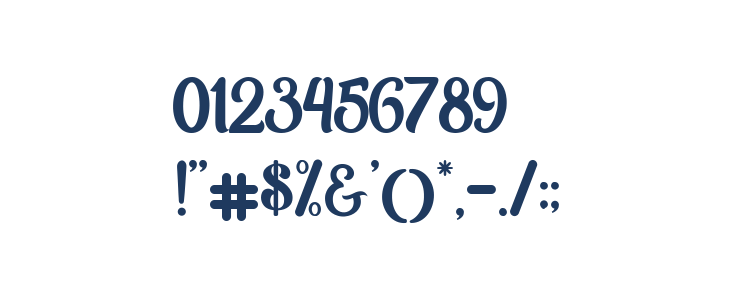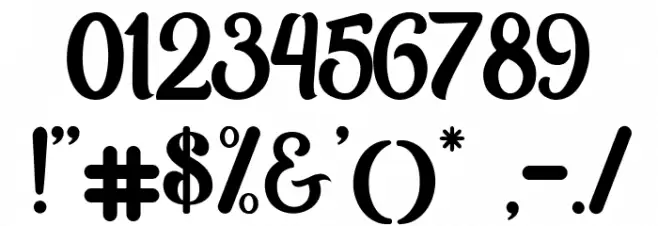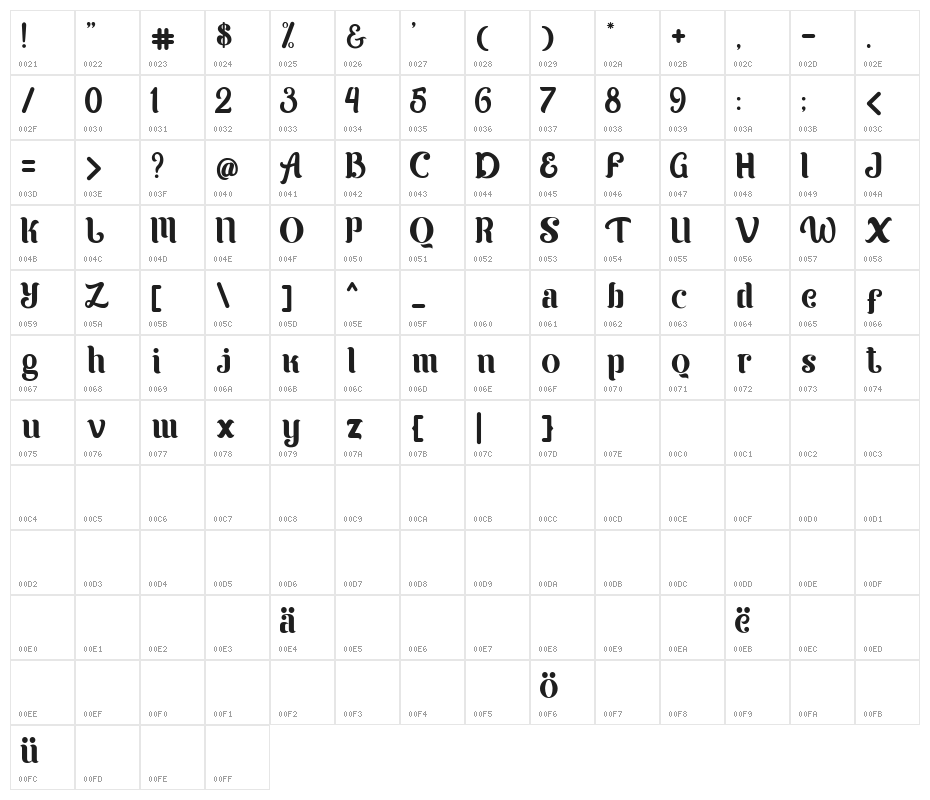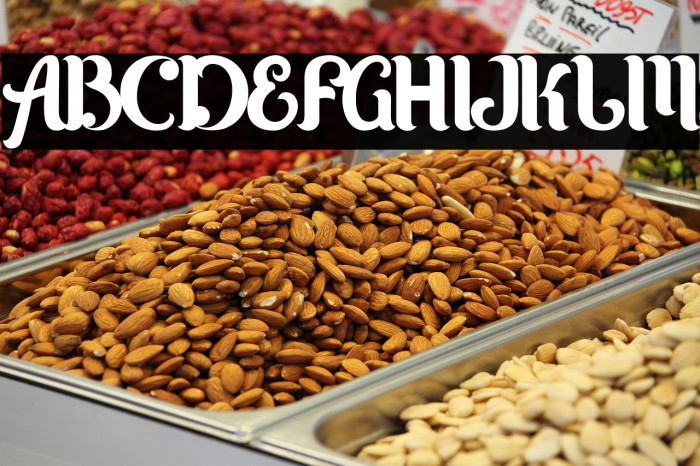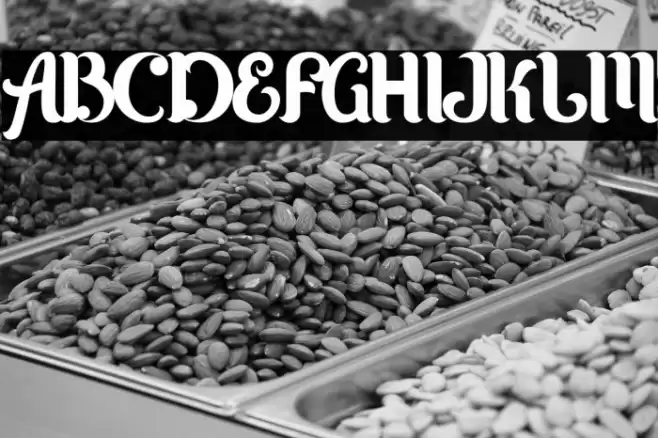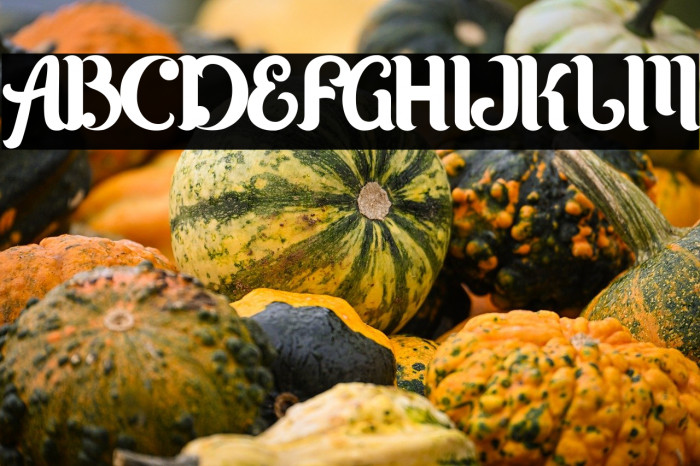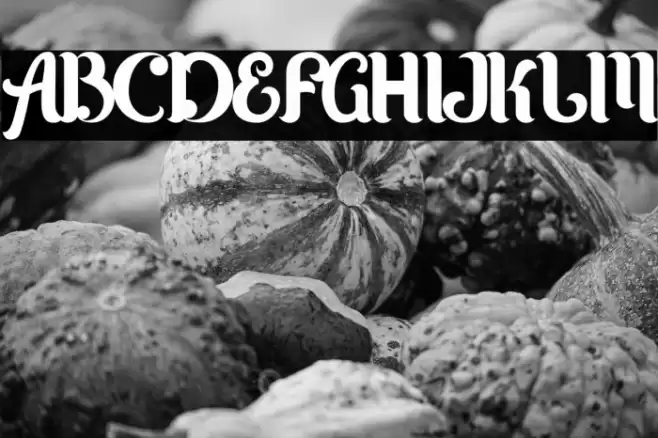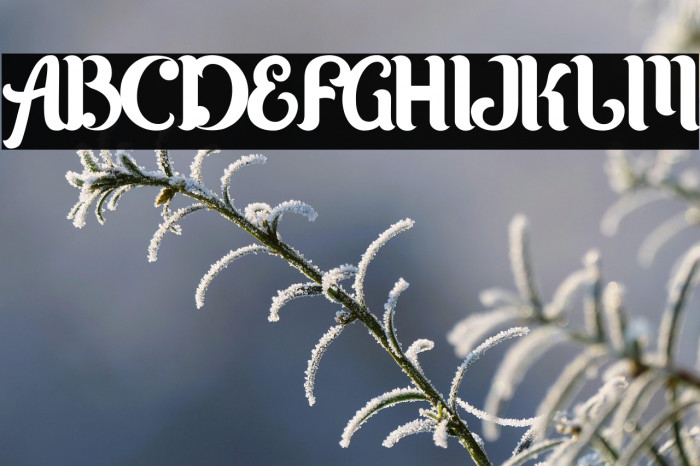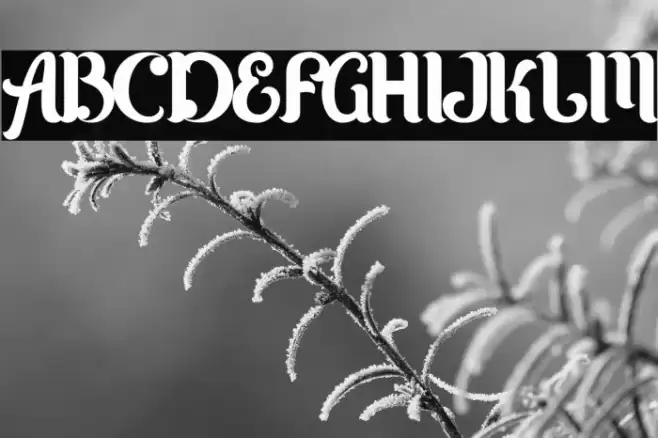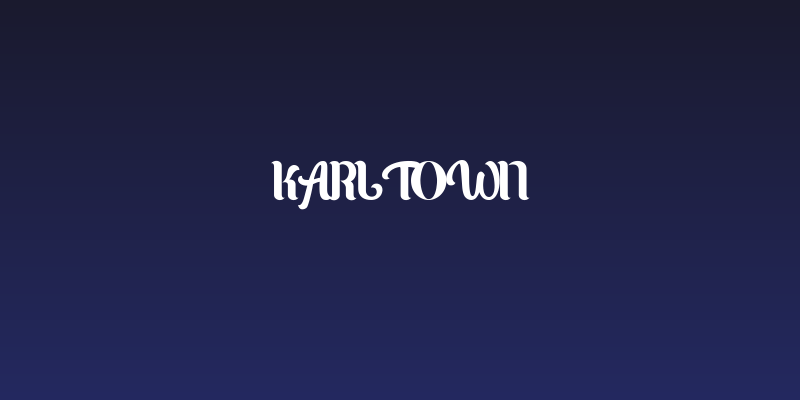
Karltown Font
Karltown Description
This font features a bold and decorative style with a strong presence. The characters are designed with a unique flair, incorporating both rounded and angular elements that create a dynamic and eye-catching appearance. The uppercase letters are particularly striking, with exaggerated curves and flourishes that add a sense of movement and elegance. The lowercase letters maintain this decorative style, offering a consistent look across the typeface. Numbers and special characters are equally bold, ensuring readability while maintaining the overall aesthetic. This font's distinct style makes it suitable for projects that require a touch of sophistication and creativity.